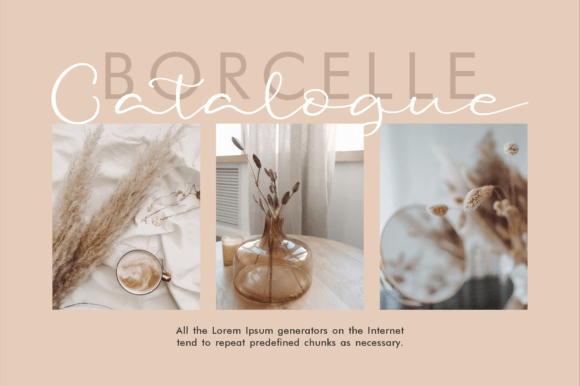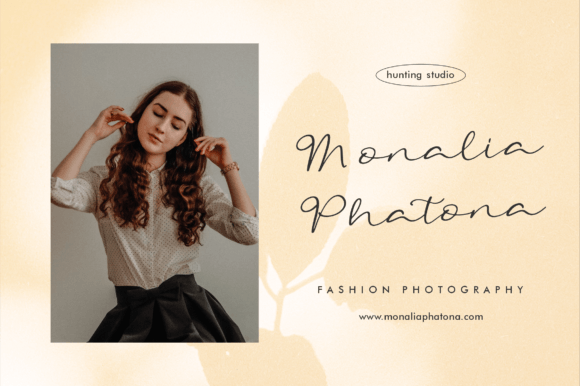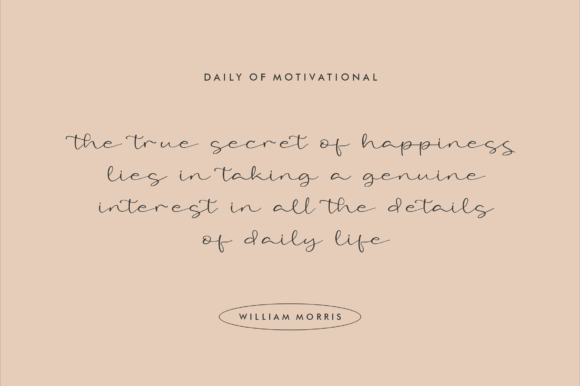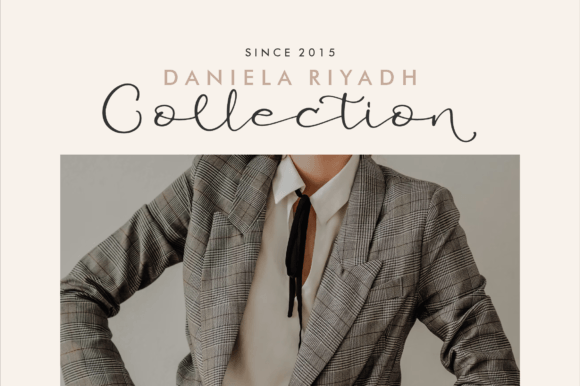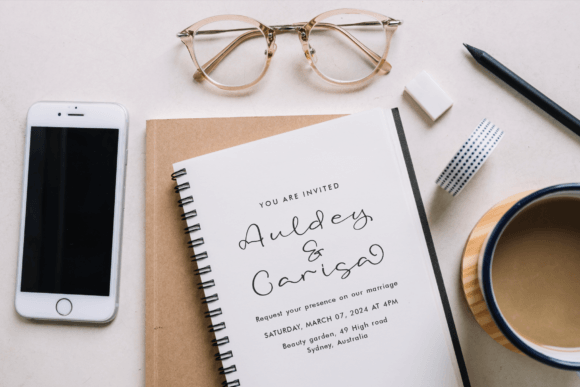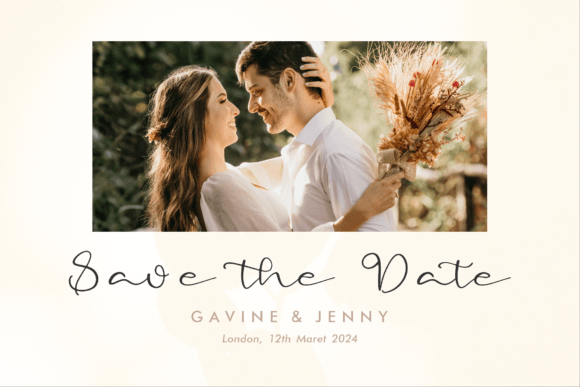
Introducing Danthies Angela Font: Elevate Your Designs with Elegance
Are you on the hunt for a font that exudes beauty and sophistication? Look no further than Danthies Angela, a stunning script font from Letterfabric Studio. This gorgeous typeface is perfect for designers and crafters seeking to add a touch of elegance to their projects. In this article, we’ll dive into the world of Danthies Angela Font, exploring its features, uses, and benefits.
What is Danthies Angela Font?
Danthies Angela is a beautiful and elegant script font, carefully crafted by Letterfabric Studio. Its flowing lines, intricate details, and classic charm make it an ideal choice for a wide range of design projects. Whether you’re working on logos, branding projects, homeware designs, or product packaging, Danthies Angela Font is sure to impress.
Features of Danthies Angela Font
So, what sets Danthies Angela Font apart from other typefaces? Here are some of its key features:
- Beautiful Script Style: Danthies Angela boasts a stunning script style, perfect for adding a touch of sophistication to your designs.
- Elegant and Refined: This font exudes elegance and refinement, making it suitable for high-end designs and luxury brands.
- Versatile: Danthies Angela Font can be used for a wide range of projects, from logos and branding to homeware designs and product packaging.
- Easy to Read: Despite its intricate details, Danthies Angela Font is easy to read, making it perfect for body text and captions.
Uses of Danthies Angela Font
Danthies Angela Font is an incredibly versatile typeface, suitable for a wide range of design projects. Here are some ideas to get you started:
- Logos and Branding: Create a lasting impression with a custom logo or branding project featuring Danthies Angela Font.
- Homeware Designs: Add a touch of elegance to your homeware designs, such as stationery, wall art, and textiles.
- Product Packaging: Elevate your product packaging with Danthies Angela Font, perfect for luxury brands and high-end products.
- Mugs and Apparel: Create stunning mugs, t-shirts, and other apparel featuring Danthies Angela Font.
- Quotes and Posters: Use Danthies Angela Font to create inspiring quotes, posters, and prints.
Benefits of Using Danthies Angela Font
So, why choose Danthies Angela Font for your next design project? Here are some benefits to consider:
- Unique and Distinctive: Danthies Angela Font is a unique and distinctive typeface, sure to set your designs apart from the crowd.
- High-Quality: This font is crafted with precision and attention to detail, ensuring a high-quality finish.
- Support for Multiple Languages: This font supports multiple languages, making it perfect for international designs and projects.
Tips for Using Danthies Angela Font
To get the most out of Danthies Angela Font, here are some tips to keep in mind:
- Pair with Other Fonts: Experiment with pairing Danthies Angela Font with other fonts to create a unique and harmonious design.
- Adjust Font Size and Style: Play with font sizes and styles to add visual interest and hierarchy to your designs.
- Use for Headings and Titles: Danthies Angela Font is perfect for headings and titles, adding a touch of elegance and sophistication to your designs.
In conclusion, Danthies Angela Font is a stunning script font from Letterfabric Studio, perfect for designers and crafters seeking to add a touch of elegance to their projects. With its beautiful script style, elegant and refined aesthetic, and versatility, this font is sure to impress. Whether you’re working on logos, branding projects, homeware designs, or product packaging, Danthies Angela Font is an excellent choice.